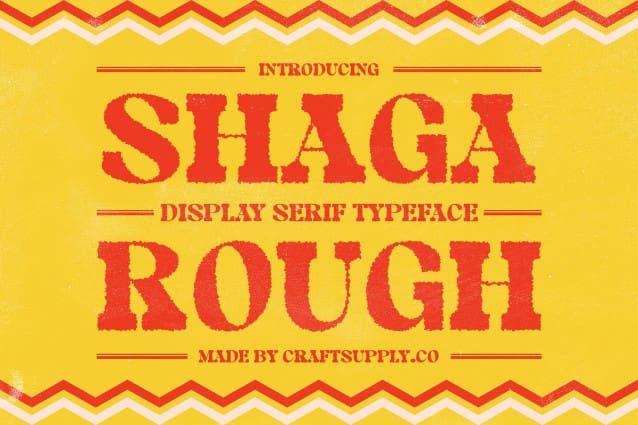
Shaga Rough Font
Shaga Rough Font is a classic serif font that elegantly combines traditional design elements with a retro feel. Its refined serif shapes evoke a sense of formality and sophistication, reminiscent of typographic styles from bygone eras. The retro influence is evident through ornamental details that enhance the nostalgic charm of the font.
Artistic Rough Effect for a Unique Texture The addition of a rough effect introduces an uneven, textured quality to Shaga Rough, providing a more casual and artistic touch. This rough texture adds an organic, slightly worn appearance, giving the font a distinctive and bold character that stands out in any design.
Blending Vintage Elegance with Modern Edge Shaga Rough successfully merges classic serif elegance with a modern artisanal edge. The result is a font that appears both timeless and unique, making it perfect for designs that aim to fuse vintage sophistication with contemporary, handcrafted elements.
Ideal for Retro-Inspired Branding and Packaging Whether used in posters, branding, or packaging, Shaga Rough is well-suited for projects that require a strong retro appeal combined with modern flair. Its blend of classic design and textured roughness creates a powerful visual impact, ideal for applications that want to highlight both tradition and individuality.